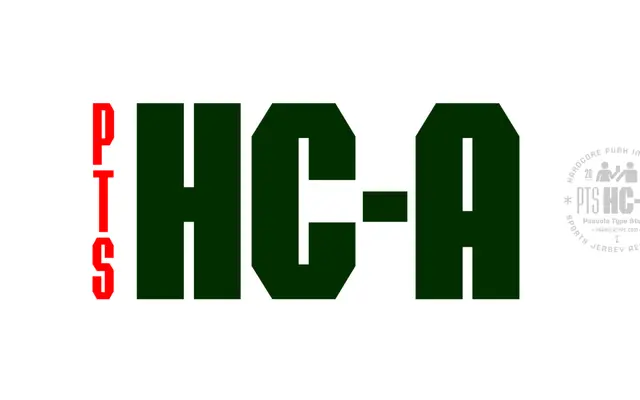
PTS HC-A
A display family spanning three widths and seven weights, drawn from the visual language of hardcore punk and sports jersey lettering.
Twenty-four styles cover condensed, regular and expanded widths across seven weights from ExtraLight to Black, giving the family a wide range of typographic intensity. The punk and sports jersey references show in the tight, muscular letterforms that hold their presence at large sizes. Latin Extended coverage with discretionary ligatures and alternates rounds out the character set.
A display sans with heavy, blocky letterforms drawn from hardcore punk and sports jersey typography traditions, placing it firmly in the display gothic sans category.